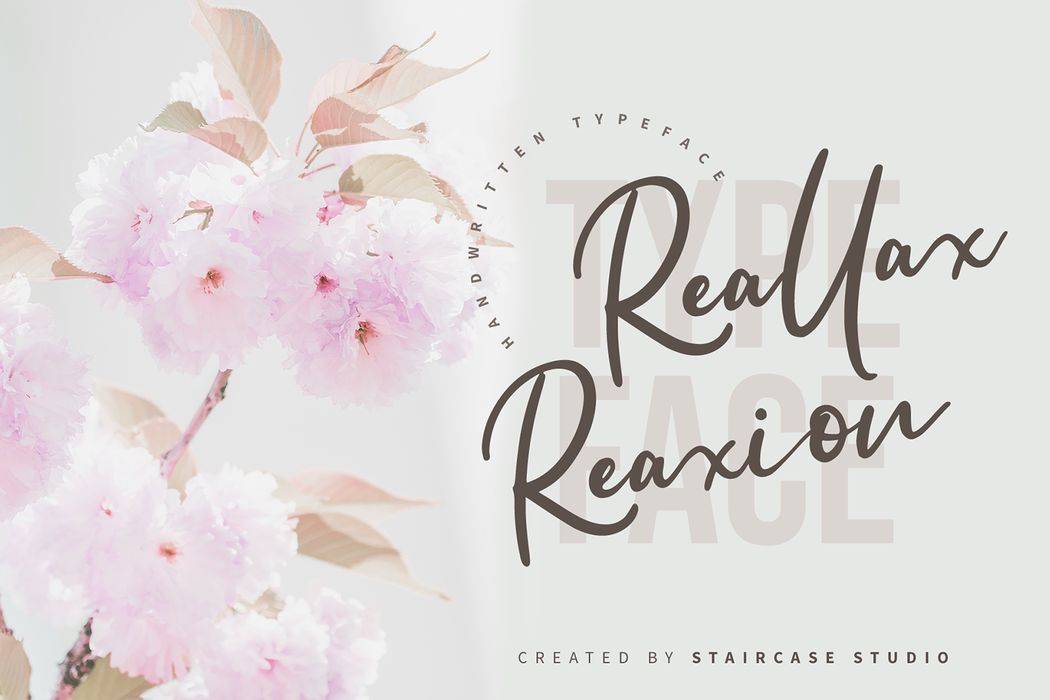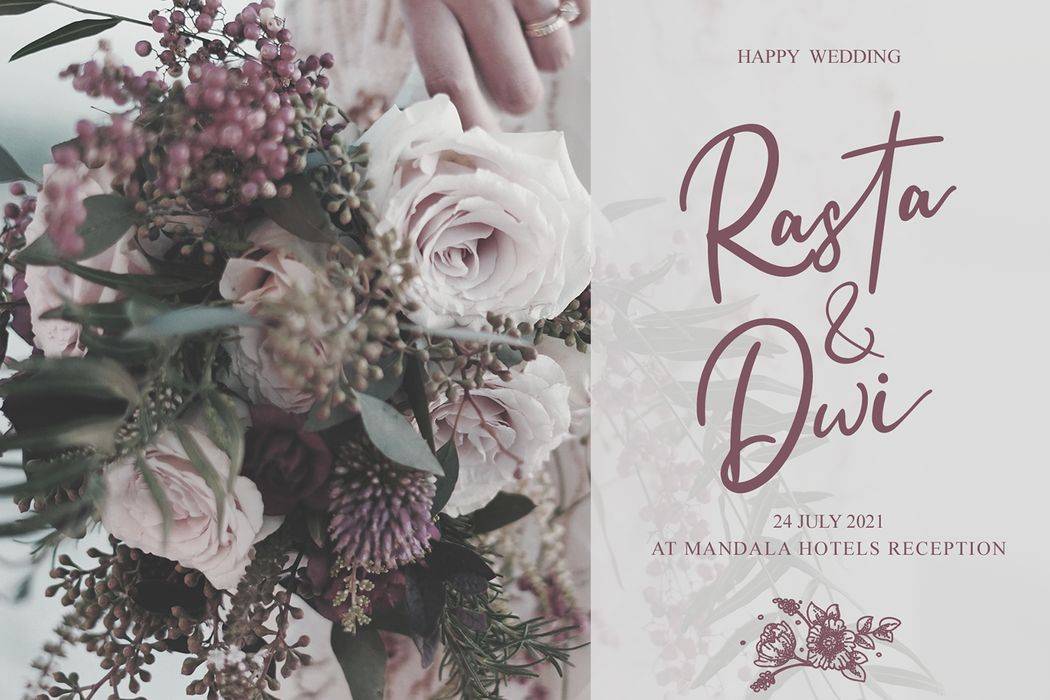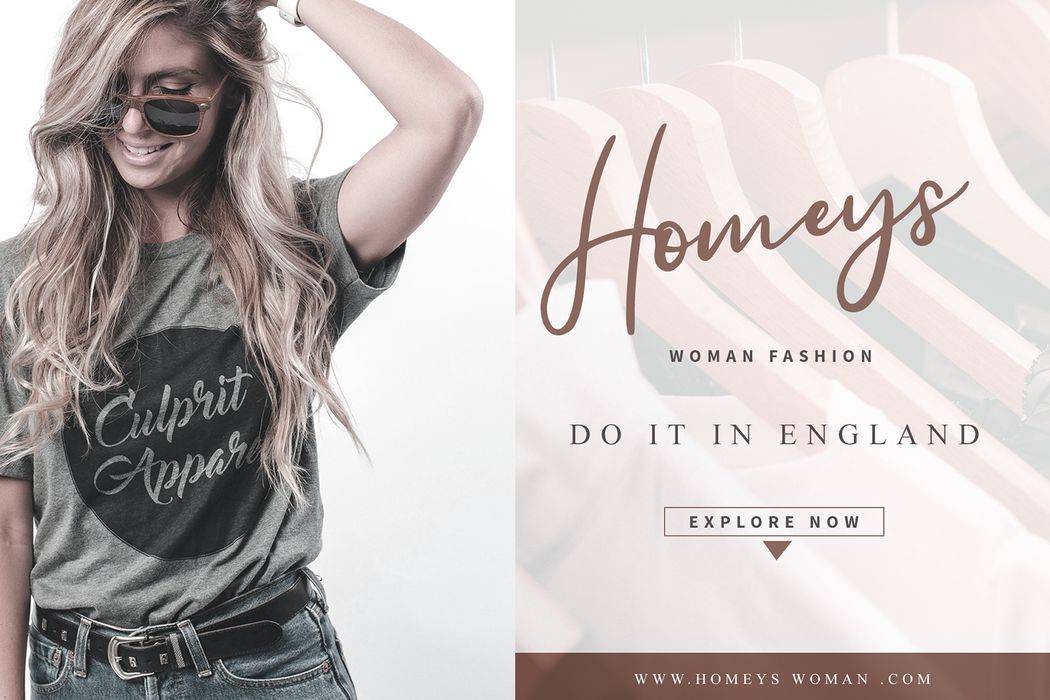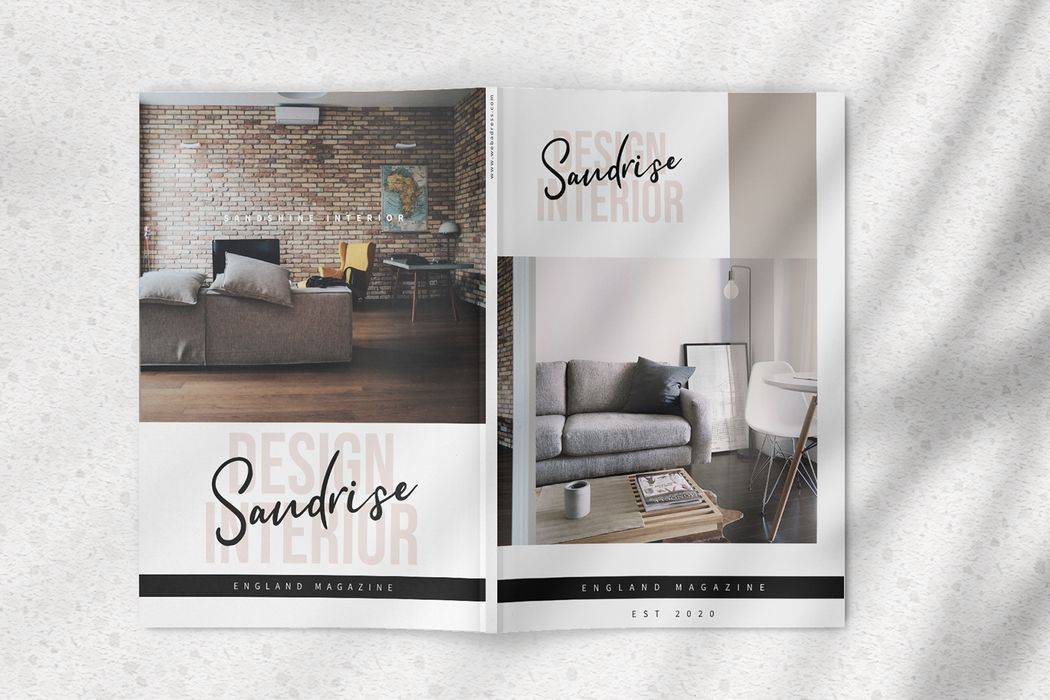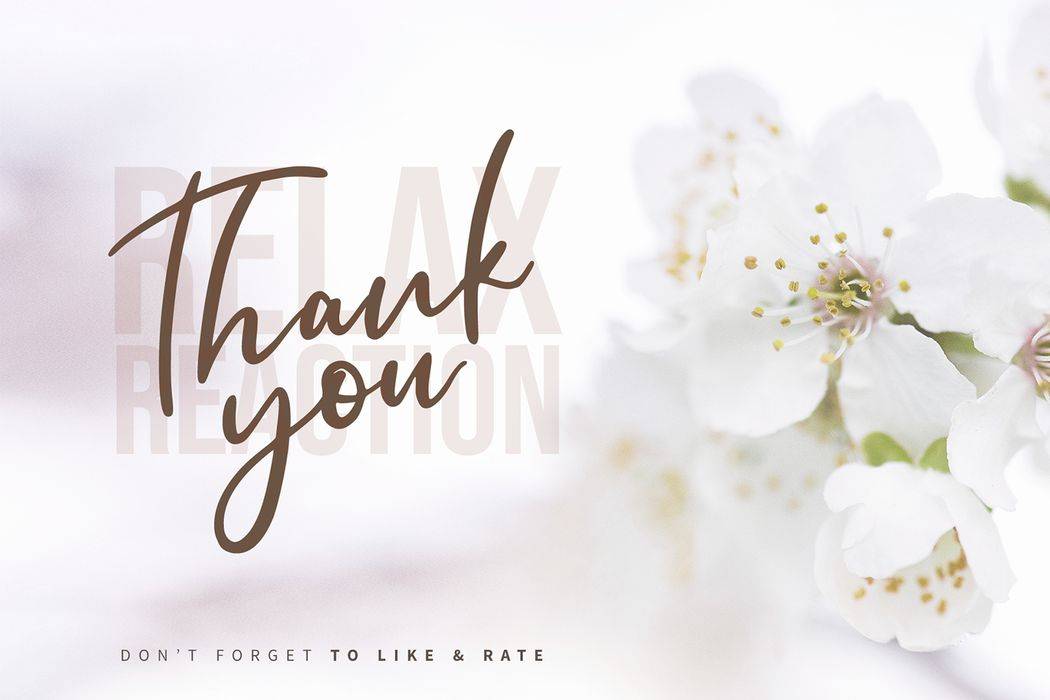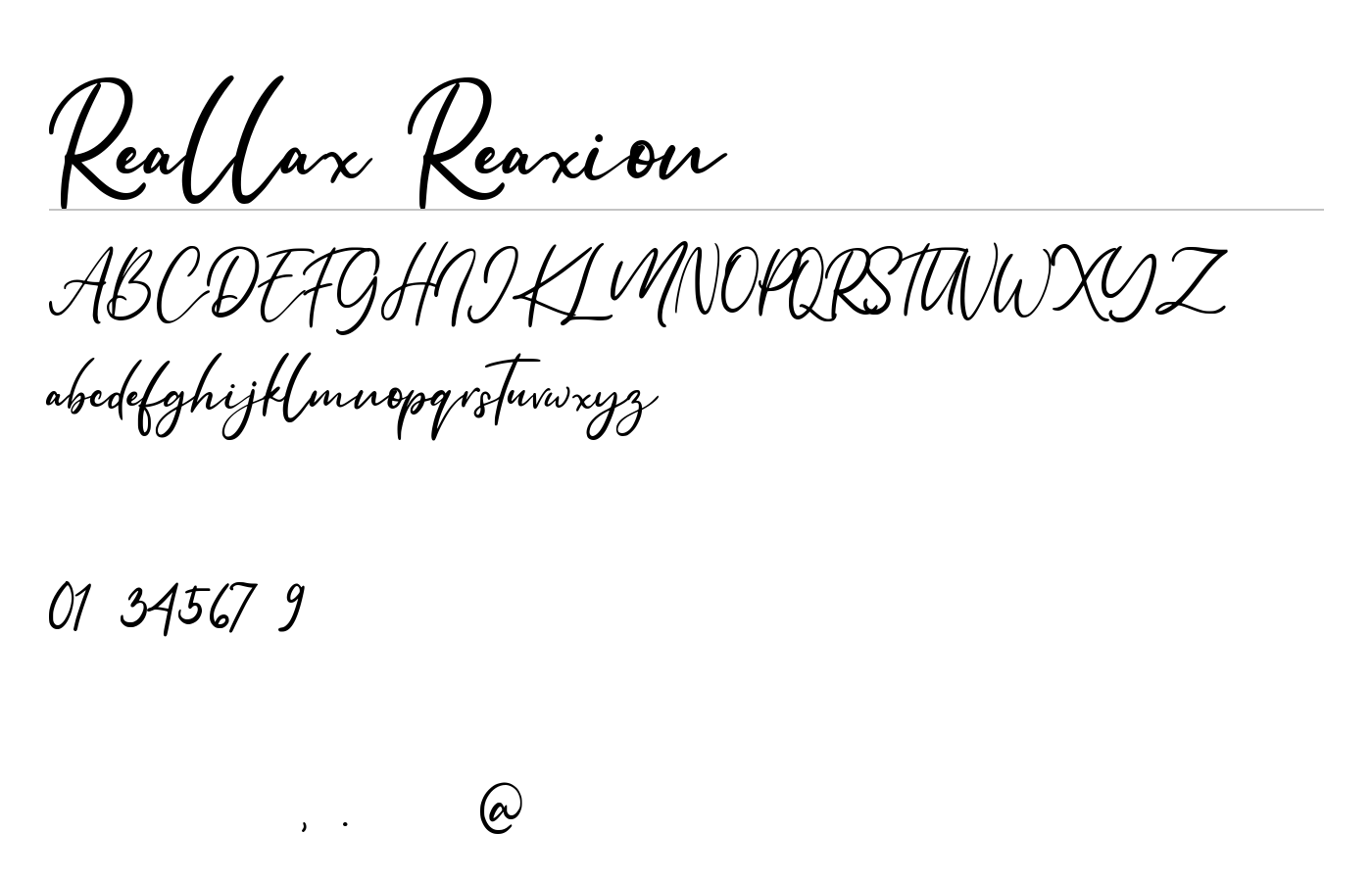
Reallax Reaxio is an elegant, handwritten script font with a smooth and flowing style, featuring a light weight and delicate, natural strokes. Its tall x-height and graceful letterforms give it a modern yet personal feel, perfect for adding a touch of sophistication and charm to invitations, branding, and creative projects. This font works well for designs that aim to convey warmth, creativity, and an artistic flair.
Reallax Reaxio Font
About Reallax Reaxio Font
| Font family | Reallax Reaxio Font |